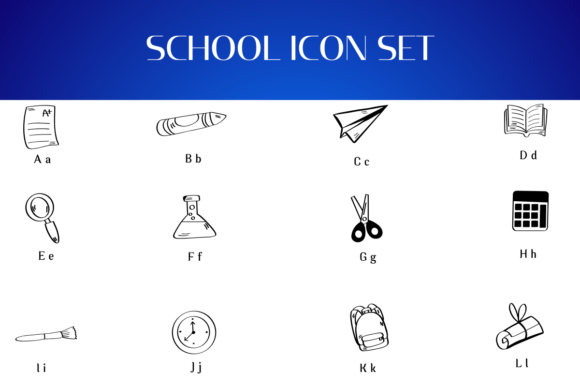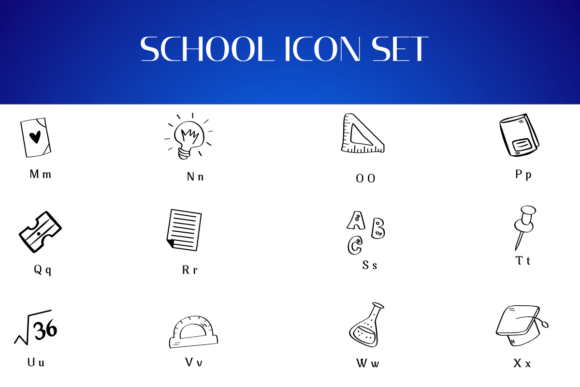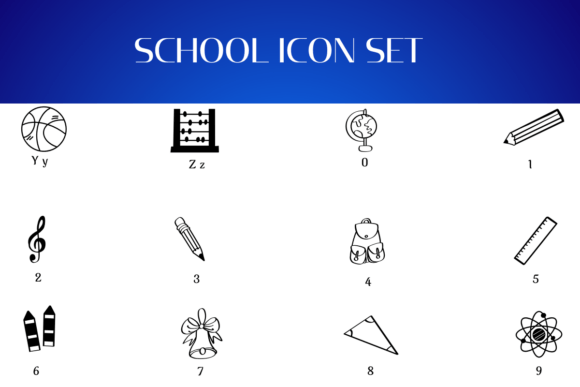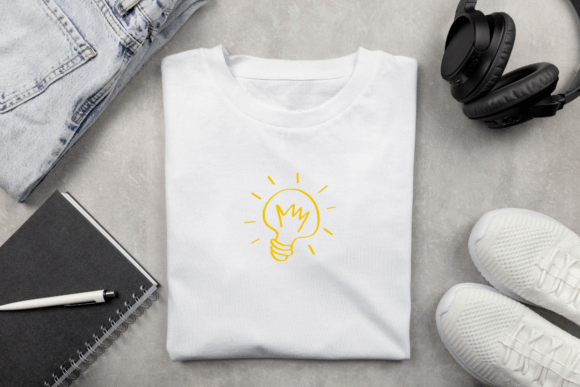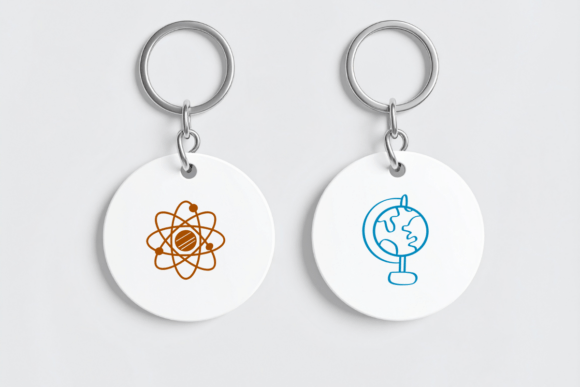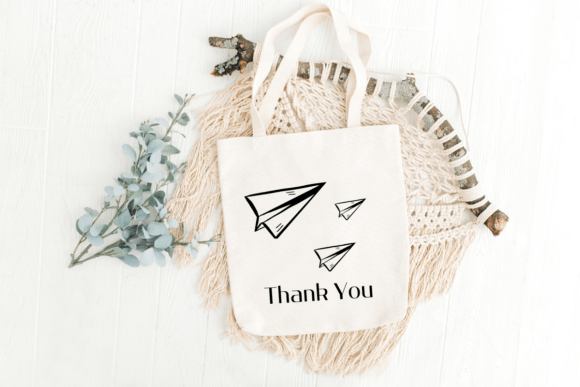
Introduction to School Icon Set Font Font
Fonts play a crucial role in design, and the School Icon Set Font font is a typeface that brings both character and versatility to any project. Whether you’re working on a branding project, a website, or a print design, the School Icon Set Font font offers a unique style that can elevate your work.
Bring a playful, hand-drawn touch to your classroom materials with the School Icon Set dingbats font.
This charming collection features a wide variety of academic and creative symbols, ranging from essential stationery like pencils and rulers to scientific tools and sports equipment Each icon is crafted with a vibrant, doodle-inspired aesthetic that feels personal and engaging.
Key Features of School Icon Set Font Font
Why Choose School Icon Set Font Font?
The School Icon Set Font font is more than just a typeface – it’s a design tool that helps you communicate your message with style and clarity. Its unique character set and versatile design make it suitable for a wide range of applications, from elegant invitations to bold headlines.
With its carefully crafted letterforms and balanced proportions, the School Icon Set Font font ensures readability and visual appeal across all mediums.
What makes School Icon Set Font font special?
The School Icon Set Font font stands out with its unique design, exceptional readability, and versatility across various design applications.